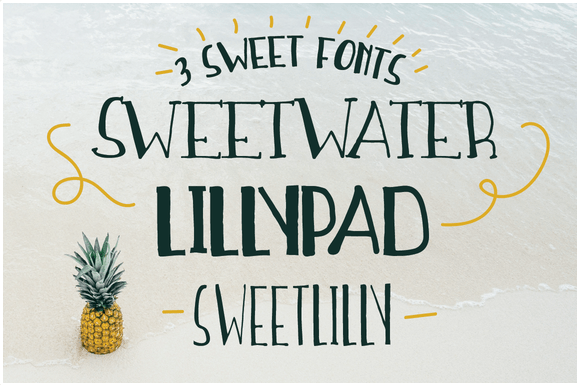
Font Frenzy: Sweetwater Handwritten Font Trio
Introducing Sweetwater, a delightful font trio by Millie mae and Co.
Details: Sweetwater font, Lilypad Font, Sweetlily Font